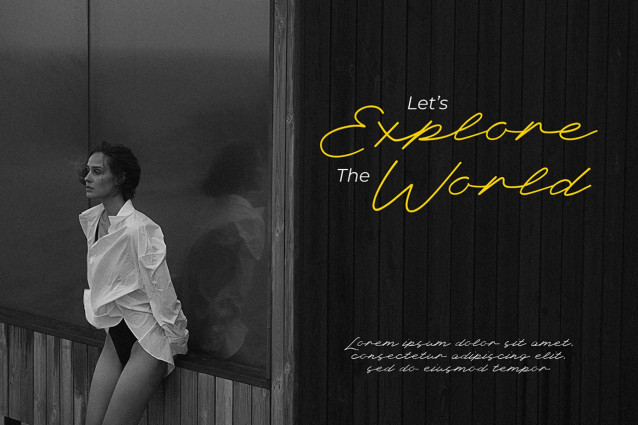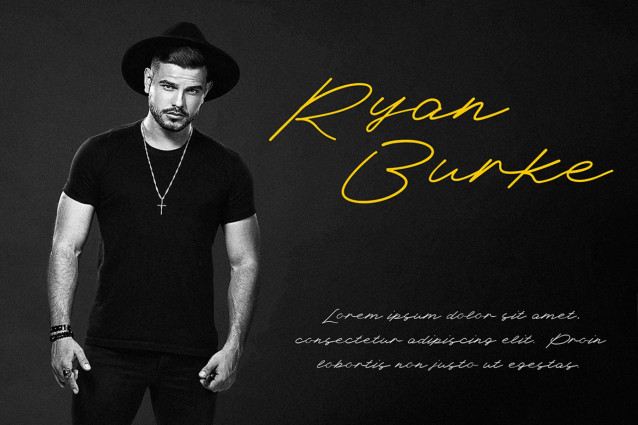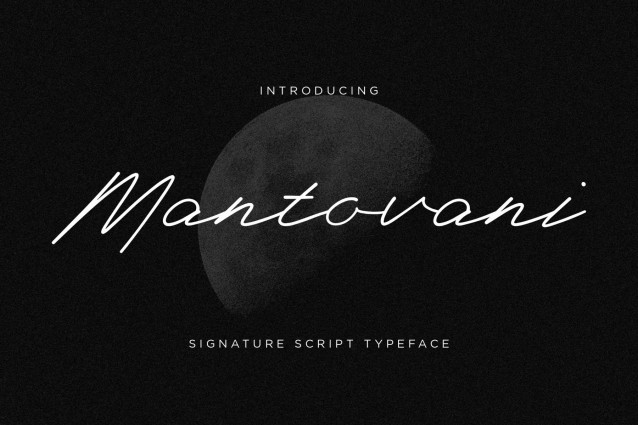
Mantovani Font
Mantovani is an elegant signature script font featuring a monoline structure and a rapid, expressive slant. The letterforms carry a natural, handwritten quality with sweeping ascenders and descenders that suggest a personal, handwritten note or a quick signature.
Use it for fashion branding, luxury product packaging, wedding stationery, editorial layouts, and social media graphics. It is a natural fit for projects requiring a sophisticated, personal touch, such as boutique business cards, photography watermarks, and lifestyle magazine headlines.
Perfect for designers, entrepreneurs, and creatives seeking a refined handwritten font that feels personal yet professional. Mantonani creates stunning visual identities, making it an ideal choice for logos, branding, wedding invitations, social media content, packaging, photography watermarks, and high-end marketing materials.
Its clean and stylish appearance allows your designs to communicate confidence, authenticity, and exclusivity.
Perfect For Luxury Branding Logo Design Fashion Brands Beauty & Cosmetic Packaging Wedding Invitations Photography Watermarks Personal Signatures Social Media Graphics Business Cards Product Packaging Editorial Design Lifestyle Branding Features
✔ Smooth Handwritten Style
✔ Elegant Ligatures